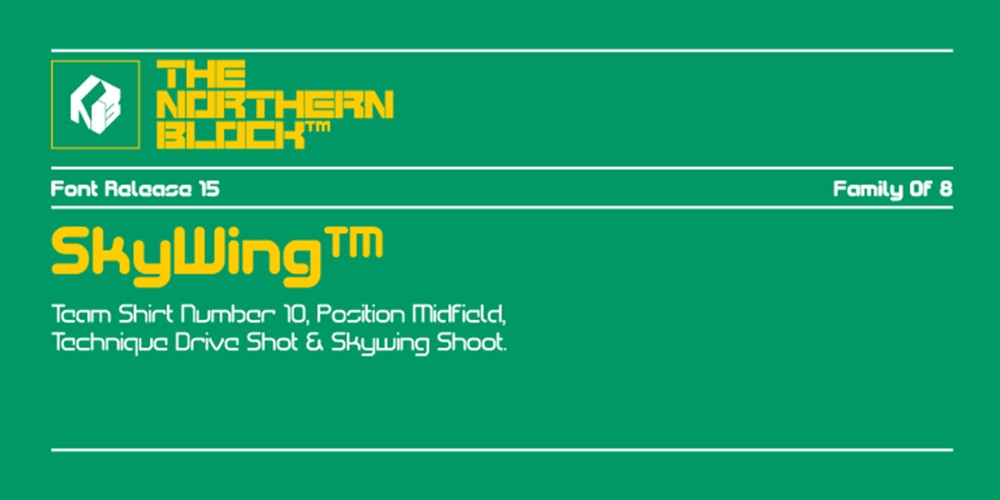
SkyWing
SkyWing font
SkyWing Font Family was designed by Jonathan Hill and published by The Northern Block. SkyWing contains 8 styles and family package options. A modern rounded typeface inspired by Japanese computer console games. Example: Captain Tsubasa created by Yoichi Takahashi.